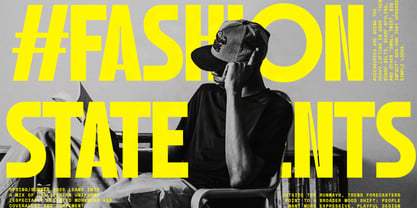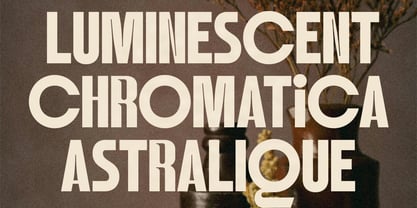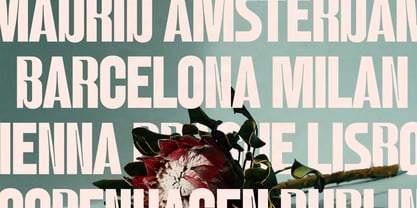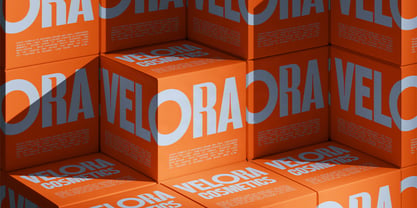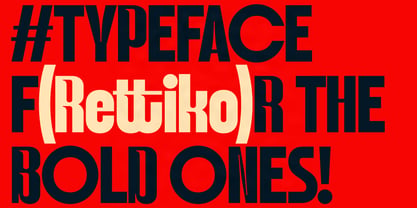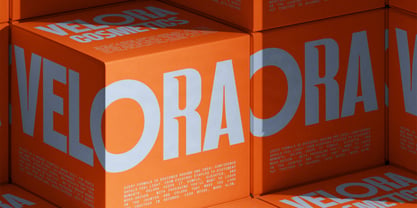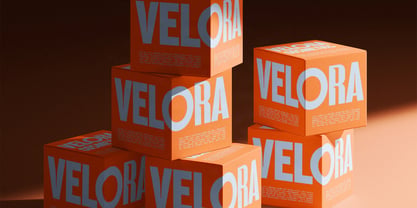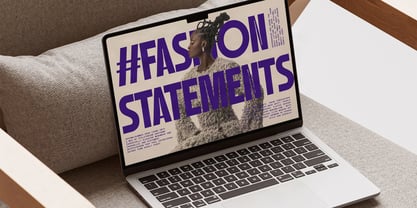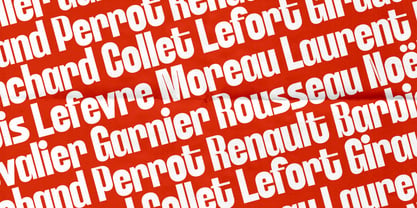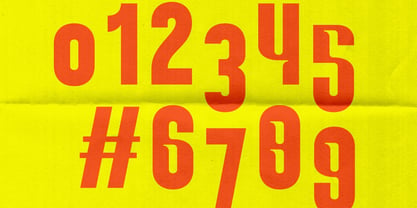
SLTF Rettiko
SLTF Rettiko is a bold condensed display typeface built for designers who want typography that speaks first. Inspired by retro display styles and refined for modern use, Rettiko delivers strong vertical rhythm, confident proportions, and unmistakable presence. Its condensed structure makes it ideal for headlines, posters, fashion visuals, packaging, album artwork, and social media graphics where space is limited but impact is essential. Rettiko’s letterforms are sharp and deliberate, balancing expressive character with clean construction to ensure consistency across layouts. The typeface includes uppercase and lowercase letters, numerals, punctuation, and multilingual support, making it flexible enough for branding systems while still excelling as a display font. Rettiko works especially well when paired with minimal compositions, photography, and bold color choices. If you are looking for a condensed typeface with retro attitude, modern control, and strong visual authority, Rettiko is designed to stand out.